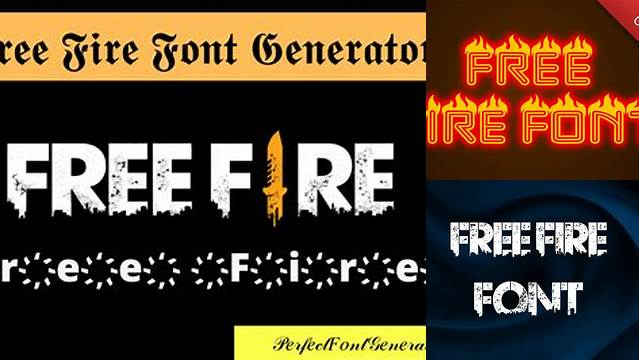
Free Fire Font Guide: Style Your Game With Awesome Text
Hey guys! Ever wondered how to spice up your Free Fire profile, clan name, or in-game chat with some cool fonts? You're in the right place! We're diving deep into the world of Free Fire font styles, helping you find the perfect text to express yourself and stand out from the crowd. Get ready to learn how to customize your text, where to find the best font generators, and how to use them effectively. Let's get started and transform your in-game text from boring to absolutely stunning! This guide is designed to be your go-to resource for everything related to Free Fire fonts, providing you with all the tips and tricks you need to make your text pop. Whether you're a seasoned player or just starting out, understanding and utilizing different fonts can significantly enhance your gaming experience and your overall presence within the Free Fire community. So, buckle up and prepare to elevate your Free Fire game with some stylish text!
Customizing Your Free Fire Username with Stylish Fonts
Alright, first things first: your username! It's the cornerstone of your Free Fire identity, the name by which everyone knows you. Choosing the right font for your username is a crucial step in creating a unique and memorable profile. Using a custom Free Fire font can make your username stand out from the standard text, grabbing the attention of other players and potentially attracting new friends or clan members. The process involves using font generators, which are online tools that convert regular text into a variety of stylish fonts. These generators offer a wide array of font options, including bold, italic, cursive, and even decorative fonts with symbols and special characters. To get started, you simply type your desired username into the generator, choose a font you like, and then copy and paste the formatted text into your Free Fire profile. The possibilities are endless, allowing you to create a username that perfectly reflects your personality and gaming style. Some players choose fonts that represent their clan affiliation, others opt for fonts that reflect their in-game achievements, and many simply choose a font that they think looks cool. The key is to experiment with different fonts and find one that resonates with you and represents your gaming identity in the best possible way. Remember that some fonts might not display correctly on all devices, so it's always a good idea to test your new username on a few different devices to ensure it looks as intended. There are also a few limitations to consider, such as the maximum character limit for usernames. However, with a little creativity, you can still create a visually appealing and unique username using a Free Fire font.
Free Fire Font Generators: Your Gateway to Unique Text
Now, let's talk about the tools that make all this magic happen: Free Fire font generators. These online tools are the secret weapon for anyone looking to customize their text in Free Fire. They're incredibly user-friendly – usually, you just type in your text, and the generator instantly provides a preview of it in various different font styles. There are tons of these generators available on the internet, so you're spoiled for choice. Some are simple and straightforward, while others offer advanced features, like the ability to add special symbols or customize the font colors. Choosing the right generator can depend on your specific needs and preferences. Consider factors like the variety of fonts offered, the ease of use, and whether the generator is compatible with your device. Once you've found a font you like, the next step is copying the formatted text. Be careful when copying and pasting the text into Free Fire, as some generators may add extra characters that can interfere with the display. Always double-check the text in-game to ensure it looks exactly as you want it to. Another helpful tip is to save the generator you've used. This way, you can quickly revisit it to make changes to your text or create new fonts. Some players create a list of their favorite generators and keep them in their bookmarks, making it even easier to create stunning in-game text. Ultimately, the best Free Fire font generators are those that provide a wide selection of fonts, are easy to use, and allow you to create text that matches your personal style and enhances your gaming experience.
How to Use Free Fire Font Generators Effectively
Using Free Fire font generators effectively is all about mastering the basics. First, you need to find a reliable and user-friendly generator. Search online for "Free Fire font generator" and explore the options available. Once you've chosen a generator, the process is usually pretty straightforward. Type your desired text into the input field. This could be your username, clan name, or even a message for your in-game chat. Next, browse through the different font options. Most generators offer a variety of styles, including bold, italic, cursive, and decorative fonts. Pay attention to the preview of each font to see how it looks. Some fonts may be more readable than others, so consider this when choosing the font for your username. When you find a font you like, simply copy the formatted text. Make sure to copy the entire text, including any special characters or symbols. Now, paste the formatted text into the appropriate field in Free Fire. This could be your username, clan name settings, or the in-game chat. Double-check to ensure the font displays correctly. Sometimes, fonts may appear different on different devices or operating systems. If the font doesn't appear as expected, try using a different generator or font style. Experiment with different combinations of fonts, symbols, and special characters to create text that stands out. Don't be afraid to get creative and let your personality shine through your font choices! Remember that readability is important. While it's tempting to choose the flashiest font available, ensure that your text is easily legible to other players. Finding the right balance between style and clarity is key to using Free Fire font generators effectively. Also, be aware of any character limits in the game, as some fonts may use up characters quicker than others.
Best Free Fire Fonts for Clan Names
If you're a clan leader or member, choosing the right font for your clan name is crucial for building a strong brand and identity. Your clan name is the first thing other players see, and a well-chosen font can immediately grab their attention and reflect your clan's personality. When selecting a Free Fire font for your clan name, consider the following factors. Does the font align with your clan's values and goals? Does it give off the right vibe? For example, a bold, strong font might be suitable for a competitive clan, while a more playful font might be better for a casual, fun-loving group. Make sure your clan name is clear and easy to read. While fancy fonts can be attractive, they should not compromise readability. Members of your clan and potential recruits should be able to read your name easily and quickly. The font should also be unique. The last thing you want is for your clan name to blend in with the rest. There are many Free Fire font generators, so experiment with different options until you find the perfect fit. There are a lot of font styles to choose from; for example, you can choose a font that uses special symbols or characters that represent your clan's identity. Once you've chosen your font, ensure it looks good on different devices. Test your clan name on different devices to make sure the font displays correctly, especially on various screen sizes. After setting your clan name, be sure to use this new style in any communication or promotion that your clan does. By making a good name, your clan is more likely to be sought after by others. A well-designed clan name can elevate your clan's image and make it more attractive to new members. It can create a sense of pride among existing members and help your clan stand out in a competitive environment. So, make sure you take the time to choose the perfect Free Fire font for your clan name.
Popular Font Styles for Free Fire Clan Names
When it comes to popular font styles for Free Fire clan names, several options consistently stand out. Bold and strong fonts are a great choice for competitive clans. These fonts convey strength, dominance, and a sense of authority. They can make your clan name appear powerful and intimidating to opponents. Cursive fonts are another popular choice, offering a touch of elegance and sophistication. These fonts can be ideal for clans that emphasize a sense of community, teamwork, or a more relaxed gaming style. They often give a more personalized touch. Another option is stylized fonts. These fonts incorporate unique designs and special characters, allowing you to create a clan name that is eye-catching and memorable. These are perfect if you want to stand out from the crowd. Consider the font's readability. While a fancy font may look amazing, it's useless if no one can read your clan name. Make sure the font is clear and easy to understand, even from a distance. A lot of clan leaders combine these different font styles with symbols and special characters. Using symbols like stars, arrows, or other relevant images can visually enhance your clan name and make it more appealing. There are also fonts that incorporate unique symbols and characters to create a unique design. Also, be sure to check the compatibility of your font across different devices and game versions. Some fonts may not display correctly on all devices, so it's essential to test your clan name on multiple devices to ensure consistency. Ultimately, the best font for your clan name depends on your clan's personality and goals. You must carefully consider your audience and choose a font that is both visually appealing and representative of your brand. So, whether you want a bold statement or an elegant touch, there are tons of options available. Experiment with different fonts and find the perfect one that speaks to your team.
Combining Fonts and Symbols for Your Clan Name
Combining fonts and symbols for your clan name is a fantastic way to create a visually appealing and unique identity that distinguishes your team from the rest. The use of symbols can add depth, meaning, and visual interest to your clan name, making it memorable and instantly recognizable. Consider using symbols that relate to your clan's values, goals, or gaming style. For example, a clan that focuses on precision and strategy might use a sniper scope symbol, while a clan that values teamwork might use a handshake symbol. Symbols can also be used to highlight certain aspects of your clan name. You can use symbols to emphasize the beginning or end of your clan name or to separate different words. Experiment with combining different fonts and symbols to create a balanced and visually appealing design. It's essential to make sure your clan name is easy to read. While creative fonts are great, ensure the font is readable, especially for clan names. Consider the overall aesthetic of your clan name. Ensure the fonts and symbols complement each other and create a cohesive visual style. Remember that the more creative and personalized you are with your design, the more your clan is likely to stand out. By carefully choosing the right font and symbols, you can craft a clan name that truly reflects your team's personality and goals. Also, consider the impact your clan name has on potential new members. A creative clan name can attract new recruits and make your clan more appealing in a competitive landscape. The best Free Fire font and symbol combination is one that is unique, memorable, and consistent with your clan's identity. It's a chance to express your team's personality and create a strong brand identity within the Free Fire community.
Examples of Creative Clan Names with Unique Fonts
Let's dive into some examples of creative Free Fire clan names with unique fonts to inspire you! These examples demonstrate how combining different fonts and symbols can result in catchy and recognizable clan identities. Example 1: The Shadow Strikers. This clan name uses a dark, bold font to convey strength and a sense of mystery. The addition of a shadowy figure symbol makes the clan name even more visually appealing. Example 2: Phoenix Fury. This clan name uses a fiery, cursive font to represent the clan's passionate gaming style. The addition of a phoenix symbol creates a visual image. Example 3: Cyber Hunters. This clan name combines a futuristic font with a sharp, modern style. The addition of a crosshair symbol reinforces the clan's focus on precision and target-oriented gameplay. Example 4: Elite Guardians. This clan name uses a strong, classic font, making the clan name sound powerful and trustworthy. The addition of a shield symbol enhances the image of the clan, conveying a sense of protection and security. When designing a clan name, consider your gaming style, values, and goals. Also, consider the font style and symbols you use. By combining different fonts and symbols, you can create a clan name that is both unique and memorable. Remember to test your clan name across different devices and ensure the font and symbols display correctly. Ultimately, the best clan name will be one that resonates with your team, is visually appealing, and accurately reflects your clan's identity within the Free Fire community. These examples should inspire you to create a unique and creative clan name.
Utilizing Free Fire Fonts in In-Game Chat
Using different fonts in your Free Fire in-game chat can significantly enhance your communication and create a more engaging experience for you and your teammates. Imagine being able to make your messages stand out in a crowded chat feed, emphasizing your strategic calls or simply adding a touch of personality to your interactions. With the right Free Fire font, you can highlight important information, such as enemy locations, strategic plans, or even just friendly banter. This ability can make your team communication clearer and more effective. You can use fonts to differentiate yourself from other players, which is especially helpful during intense gameplay. For example, using a bold font to highlight warnings or using a cursive font to express emotions. There are many font generators on the internet, which allow you to convert your regular text into different styles. Once you've generated the font, you simply copy and paste it into the in-game chat window. However, make sure the font displays correctly. Some fonts may not be supported or may appear differently depending on the device. Another important point is to ensure that your messages are still readable. While it's tempting to use fancy fonts, your messages should be easy to understand. This balance between style and readability ensures effective communication. Experiment with different fonts and see which styles best suit your communication needs and personality. Your goal is to create a more exciting and visually appealing chat experience, which is essential to enhancing your overall experience. By using Free Fire font in chat, you can improve the way you communicate, connect with other players, and make your presence more remarkable. By utilizing fonts effectively, you can greatly improve your communication, make it more efficient, and create a better in-game experience for you and your teammates.
Can I Use Symbols and Emojis in My Font?
Yes, you can often use symbols and emojis to enhance your Free Fire font. Many font generators allow you to incorporate symbols and emojis into your custom text, allowing you to add visual flair. To use symbols and emojis effectively, ensure the font generator you're using supports them. Not all generators support the full range of symbols. Test your font to ensure it displays correctly in Free Fire. Test your text in various game contexts. You can create a unique and expressive text that stands out. Symbols and emojis are a great way to express your emotions. Use emojis to create a more engaging chat experience. You can use emojis to indicate various things. Keep in mind that the support for emojis varies, so make sure your symbols display. The use of symbols and emojis is all about expressing your creativity.